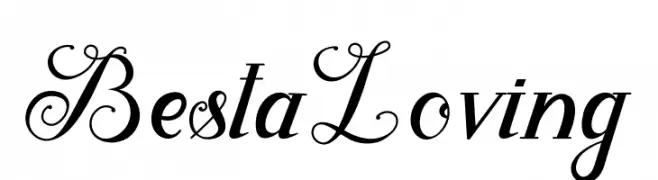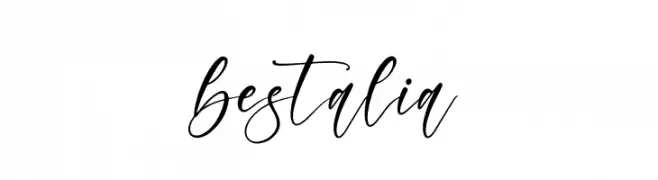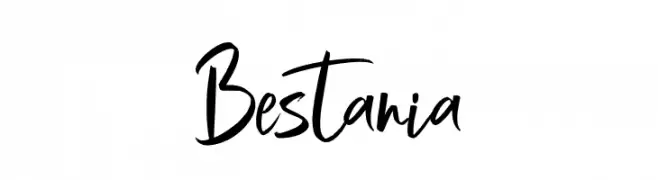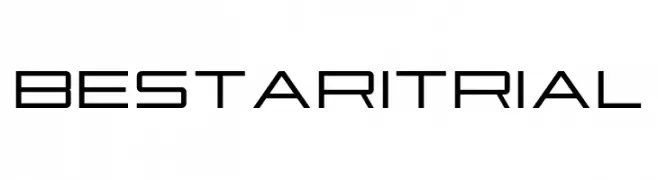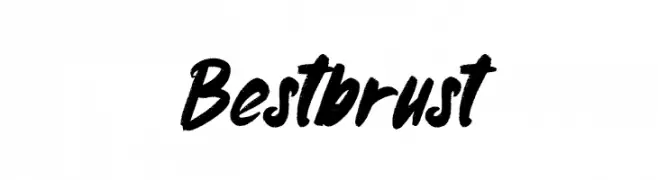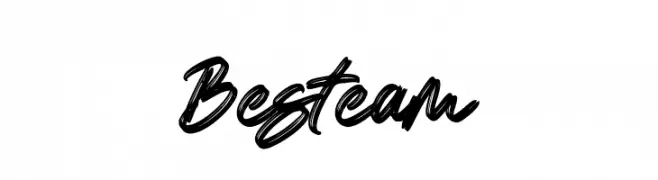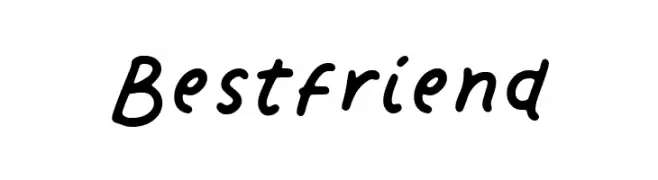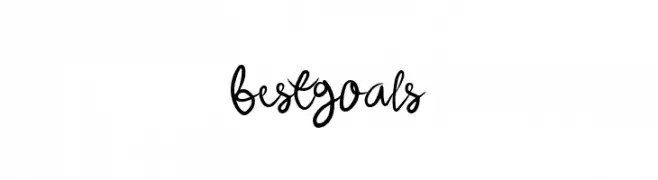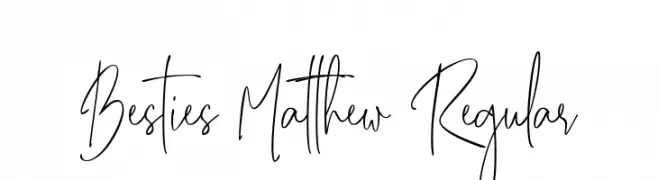
A sophisticated blend of script and serif styles with ornate uppercase and sleek lowercase letters.
A cursive, handwritten font with elegant, flowing strokes and dynamic contrast.
A modern blend of handwritten script and sans-serif styles.
A dynamic, expressive handwritten font with fluid strokes and bold characters.
A lively and expressive handwritten font with dynamic strokes.
A modern, geometric font with a sleek, futuristic design.
A bold, dynamic brush script font with expressive strokes and a lively appearance.
A bold, energetic script font with a hand-painted look.
A bold, energetic script font with a hand-painted, artistic style.
A bold, dynamic brush script font with expressive strokes.
A bold, expressive handwritten font with dynamic strokes and cursive connections.
A bold, edgy font with angular lines and a dynamic presence.
A bold, playful handwritten font with thick, rounded strokes.
A bold, playful script font with rounded strokes and a friendly, handwritten style.
A dynamic, expressive handwritten font with fluid cursive strokes.
A playful, handwritten font with smooth curves and a casual style.
A playful, cursive-like script font with interconnected letters and moderate stroke thickness.
A lively and expressive handwritten font with fluid, connected letterforms.
A lively and flowing script font with smooth, cursive strokes.
A modern, elegant handwritten font with flowing, elongated characters.
A bold, expressive handwritten font with dynamic and flowing letterforms.
A cursive script font with elegant, flowing strokes and high contrast.
A bold, dynamic script font with a handwritten feel and rounded edges.
A bold, angular font with a futuristic and geometric style.
A playful, handwritten font with rounded, smooth letterforms.
A dynamic handwritten font with elegant, flowing letterforms.
A playful, handwritten font with smooth curves and a casual style.
A bold, flowing script font with elegant curves and decorative flourishes.
A modern script font with high contrast and elegant, flowing strokes.
A bold, expressive handwritten font with a brush-like texture.
A fluid, cursive font with a handwritten style and elegant connections.
A bold, brush-style font with dynamic, artistic strokes.
A flowing, cursive font with elegant, handwritten signature style.
A flowing, cursive font with elegant, interconnected characters.